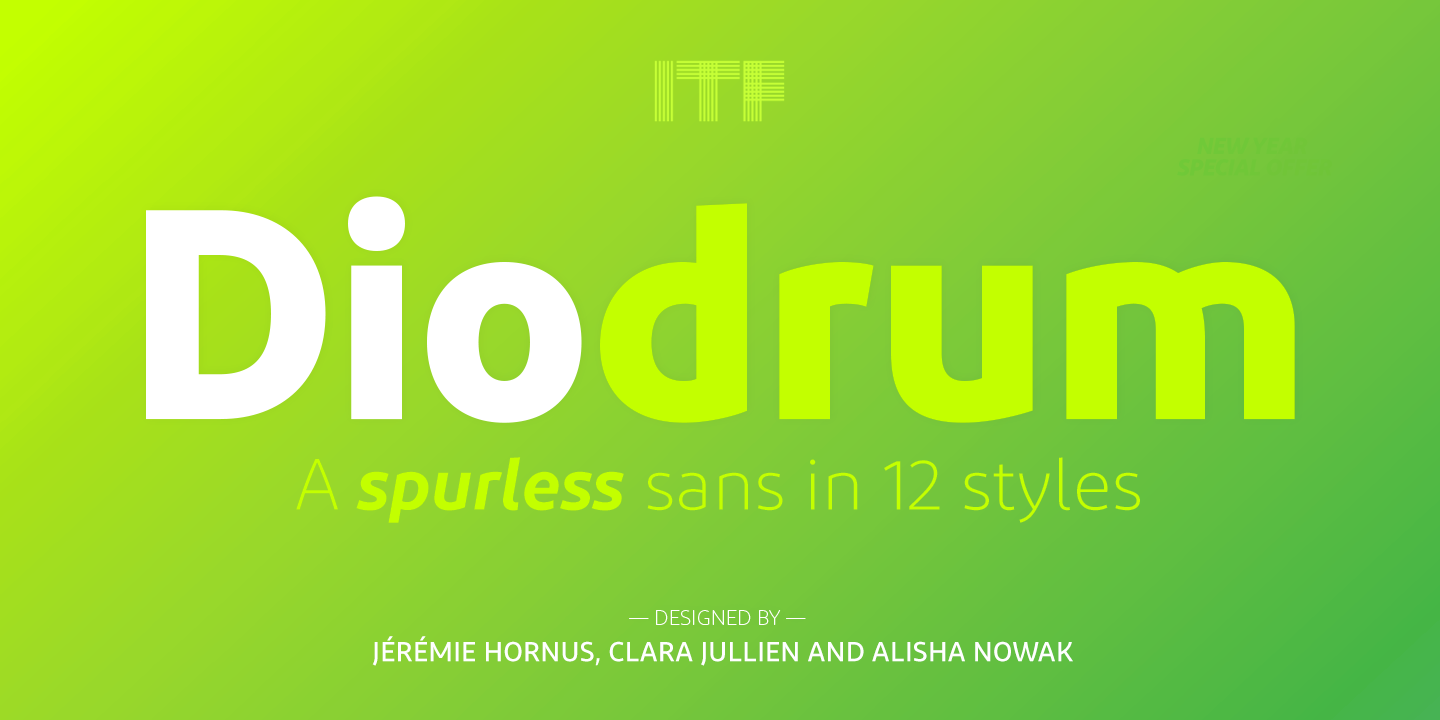
Perfect for electronic music branding, synthesizer equipment marketing, digital audio production materials, techno festival promotions, DJ performance graphics, electronic instrument packaging, audio technology communications, and modern sound design applications.
This font is exciting because it captures the precise rhythm and electronic pulse of digital audio with synthesized letterforms that embody the technological sophistication and sonic innovation found in electronic music production and synthesizer culture.
Experience the rhythm of digital innovation with Diodrum Font Free Download, a precisely synthesized typeface that embodies the electronic pulse and technological sophistication of modern audio production. This exceptional font brings the rhythmic precision and sonic innovation of electronic music to contemporary design projects, making it perfect for audio technology companies, electronic music labels, and digital sound organizations seeking to convey the cutting-edge innovation and rhythmic energy of synthesizer culture and electronic music production.
Diodrum Font features rhythmically engineered letterforms with electronic characteristics and synthesized proportions that immediately evoke the precise timing and technological sophistication of digital audio production. The sonically designed characters combine electronic aesthetics with optimal readability, creating immediate associations with musical innovation, rhythmic precision, and the technological advancement that defines authentic electronic music production and synthesizer culture throughout professional audio and electronic music communities worldwide.
The font's remarkable sonic character makes it invaluable for electronic music labels, audio technology manufacturers, and digital sound production organizations where conveying rhythmic innovation and electronic authenticity is essential for building credibility with electronic music enthusiasts and professional audio producers. Whether you're designing materials for synthesizer companies showcasing cutting-edge electronic instruments, creating promotional content for techno festivals celebrating electronic music culture, or developing brand identities for digital audio production studios, Diodrum Font delivers the authentic electronic aesthetic that resonates with audiences seeking genuine electronic music experiences and professional audio innovation.
Electronic music professionals and audio technology specialists worldwide choose the Diodrum Font Free Download for projects requiring sonic authenticity and electronic innovation appeal. The font works brilliantly for DJ equipment manufacturers emphasizing performance precision, electronic music education programs teaching digital production techniques, audio software companies promoting cutting-edge technology, and any organization seeking to establish connections with audiences who appreciate electronic music innovation and the sophisticated technology of modern synthesizer and digital audio production.
The comprehensive Diodrum Font family includes variations that maintain the signature electronic character while providing design flexibility for diverse audio technology and electronic music applications. Each character demonstrates exceptional attention to rhythmic design principles, ensuring the sonic character remains authentic and visually compelling across all sizes, from detailed audio equipment specifications to large-scale electronic music festival signage and digital sound production materials.
This typeface excels in applications where creating atmosphere of electronic innovation and rhythmic precision is crucial for establishing audio technology credibility and electronic music connection. The synthesized letterforms create immediate associations with digital sound that eliminates the need for additional electronic symbols, allowing the typography itself to communicate sonic innovation, rhythmic accuracy, and the technological sophistication that electronic music represents in digital audio production and synthesizer culture.
Diodrum Font's technical excellence ensures optimal performance across both traditional audio equipment materials and modern digital platforms used for electronic music promotion and audio technology communications. The distinctive letterforms maintain their electronic appeal when reproduced on various materials, from synthesizer control panels to digital displays that must capture the precise essence of electronic sound innovation.